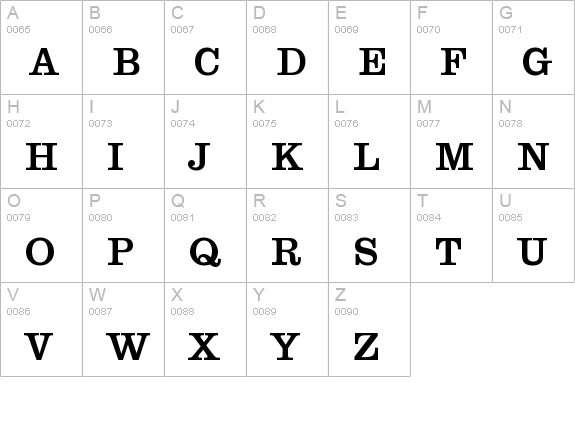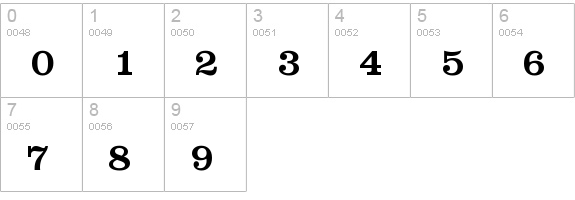
Clare-Medium Font Details
Clare-Medium is a balanced, medium-weight variant in the Clare typeface family \xE2\x80\x94 well suited to sub-headlines, navigation, and balanced editorial work.
Clare-Medium font is a versatile typeface that strikes the perfect balance between elegance and readability. With its clean lines and modern aesthetic, this font is ideal for a wide range of design projects, from branding to editorial layouts. The medium weight of the font gives it a sense of stability and presence on the page, making it a great choice for headlines and body text alike. What's even better is that Clare-Medium font is available for free download at FontsMarket.com, making it accessible to designers of all levels. Whether you're working on a personal project or a client's branding, this font will elevate your design and give it a polished, professional look. Experience the beauty and versatility of Clare-Medium font today by downloading it for free at FontsMarket.com.